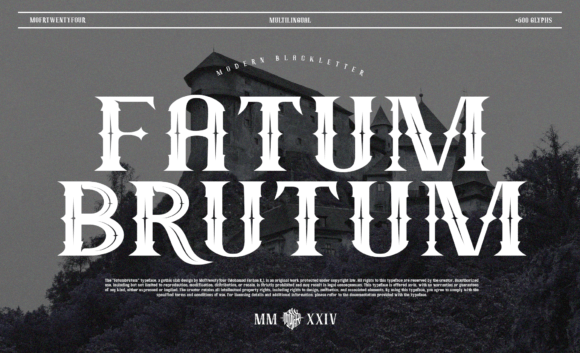
Fatum Brutum Font: A Timeless Blackletter Elegance
In the realm of typography, few fonts manage to strike a balance between tradition and trendiness as effectively as Fatum Brutum. This contemporary display font is a masterful blend of classic Blackletter elegance and modern sophistication, making it an ideal choice for designers seeking to add a touch of authenticity and refinement to their creations.
The Essence of Fatum Brutum
Fatum Brutum is more than just a font – it’s an experience. Its name, derived from the Latin phrase for “fate” or “destiny,” reflects the font’s ability to imbue designs with a sense of timelessness and gravitas. With its roots in traditional Blackletter typography, Fatum Brutum has evolved into a versatile and modern display font that whispers authenticity while boldly declaring sophistication.
Unparalleled Versatility
One of the standout features of Fatum Brutum is its versatility. The font supports multiple alphabets and boasts an impressive vault of more than 600 glyphs, making it suitable for a wide range of languages and design applications. Whether you’re working on a striking logo, a polished magazine, or a unique typographic art piece, Fatum Brutum is up to the task.
Exploring Diverse Styles
Fatum Brutum invites designers to explore its diverse styles, offering Condensed, Italic, and Regular forms. This range of styles allows for creative experimentation and flexibility, ensuring that designers can find the perfect fit for their project. The Condensed style is ideal for headlines and titles, while the Italic and Regular forms provide a more subtle, yet elegant, alternative.
Design Applications
Fatum Brutum’s versatility sparkles across various design applications, including:
- Logos: Create striking logos that command attention and exude sophistication.
- Magazines: Add a touch of elegance to your magazine designs with Fatum Brutum’s refined typography.
- Typographic Art: Explore the creative possibilities of Fatum Brutum in unique typographic art pieces.
- Streetwear Designs: Incorporate Fatum Brutum into your streetwear designs for a bold, eye-catching look.
Engraved Details and Distinguished Flair
Fatum Brutum is adorned with engraved details that add a distinguished flair to any design. These intricate details promise to make your creations stand out in a crowd, ensuring a uniquely arresting visual impact. Whether you’re aiming to create a luxurious brand identity or a statement piece of art, Fatum Brutum’s engraved details are sure to impress.
Why Choose Fatum Brutum?
With so many fonts available, why choose Fatum Brutum? Here are just a few compelling reasons:
- Timeless Elegance: Fatum Brutum’s classic Blackletter design ensures a timeless elegance that won’t go out of style.
- Versatility: With multiple styles, language support, and over 600 glyphs, Fatum Brutum is suitable for a wide range of design applications.
- Sophistication: Fatum Brutum’s refined typography and engraved details add a touch of sophistication to any design.
In conclusion, Fatum Brutum is a font that truly has it all. Its unique blend of traditional Blackletter elegance and modern sophistication makes it an ideal choice for designers seeking to create striking, memorable designs. With its versatility, range of styles, and engraved details, Fatum Brutum is sure to become a go-to font for designers looking to add a touch of timeless elegance and sophistication to their creations.